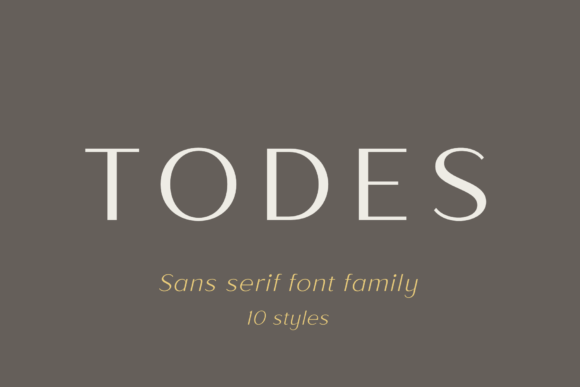
Introducing Todes Font - The Essence of Modern Elegance in Sans Serif Typography
In the realm of visual communication, where words dance and meanings unfold, fonts hold the power to transform the mundane into the magnificent. Presenting Todes Font, a sans serif masterpiece that captivates the senses with its grace and poise. Born from the creative genius of Pasha Larin, Todes is a font that speaks to the modern aesthete, the seeker of sophistication and style.
Immerse yourself in the world of Todes, where simplicity and elegance collide to create a font that is both timeless and utterly contemporary. Its clean lines and graceful curves dance across the screen, inviting your eyes to linger and your imagination to soar. Whether you're a seasoned designer or a novice just starting your creative journey, Todes is the perfect companion to bring your visions to life.
With its innate versatility, Todes effortlessly adapts to a myriad of design applications. From captivating logos that demand attention to branding materials that exude professionalism, Todes rises to every occasion. Unleash your creativity in packaging design, where the exquisite details of Todes elevate your products to the realm of luxury. Let your imagination run wild as you craft social media posts and website designs that radiate sophistication and charm.
Todes is more than just a font; it's an experience. Its carefully crafted glyphs, meticulously spaced to perfection, create a symphony of visual harmony. Each letterform is a testament to the artistry of its creator, a stroke of genius that elevates your designs to new heights. Whether you're crafting a captivating flyer or a stunning poster, Todes imbues your words with a sense of importance and gravitas.
But Todes is not merely a tool for the professional designer; it's also a font for the dreamer, the storyteller, the artist within us all. Let Todes be your muse as you craft heartfelt letters, express your innermost thoughts in a journal, or pen poetry that flows with grace and beauty. With Todes, every word becomes a brushstroke, every sentence a masterpiece.
Take a journey into the world of Todes Font, where elegance meets versatility, and creativity knows no bounds.